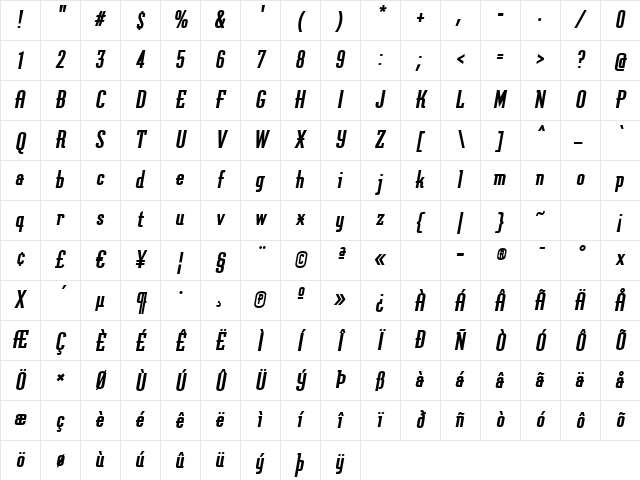
Graficz BoldItalic Free Font
Graficz BoldItalic
Graficz Family
Complete Graficz BoldItalic glyph index. Displaying only characters natively supported by Graficz BoldItalic font.
Design Context for Graficz
Graficz is a composed and adaptable typeface that performs quietly and consistently across a wide range of design contexts. The slanted form adds forward momentum and visual energy. Its bold stroke weight gives it real presence on the page.
Pro Tip: Use Graficz for emphasis, pull quotes, and subheadings where its slanted energy can add rhythm to the layout.